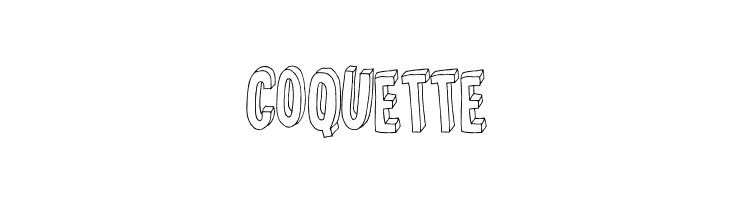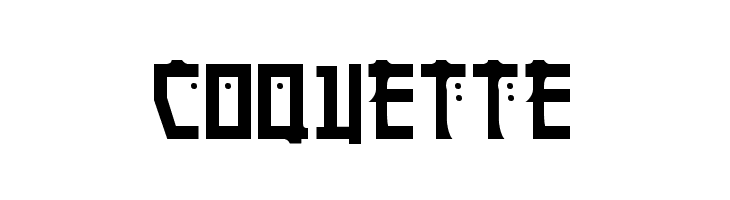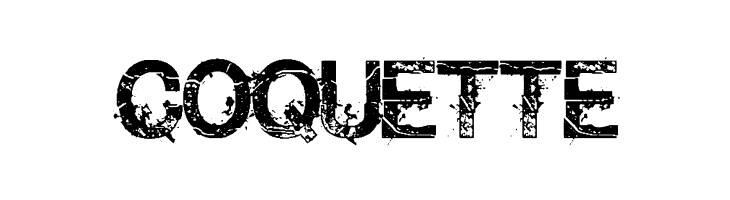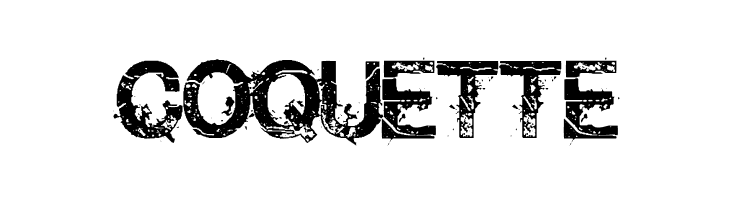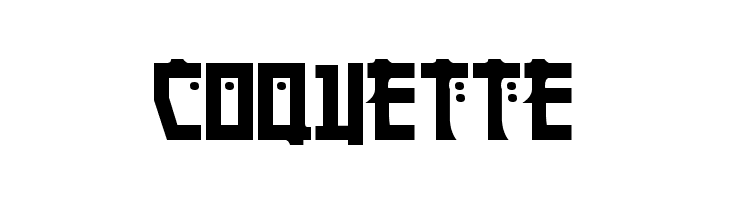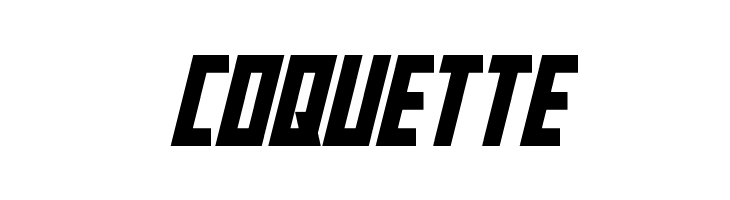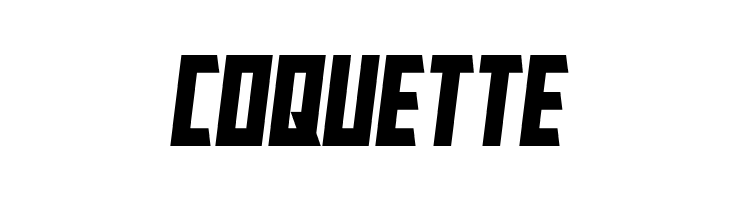
• Major Force Halftone Leftalic
A bold, geometric font with a halftone effect and futuristic style.
• Major Force Italic
A bold, italic, and geometric font with a futuristic style.
• Major Force Laser
• Major Force Laser Italic
A bold, futuristic font with sharp angles and an italic slant, perfect for sci-fi themes.
• Major Force Laser Leftalic
A bold, angular font with a futuristic and geometric design.
• Major Force Leftalic
A bold, angular font with a leftward slant, featuring geometric shapes and strong visual impact.
• Major Force Regular
A bold, geometric font with angular, blocky characters for impactful designs.
• Major Force Super-Italic
A bold, angular, and italic font with a futuristic and dynamic style.
• Majoram
A sleek, geometric font with thin, uniform strokes and a modern aesthetic.
• Majoram Bold
A modern, geometric font with clean lines and consistent stroke width.
• Majoram Bold Italic
A sleek, modern italic font with geometric precision and bold weight.
• Majoram Italic
A modern, italic font with smooth, continuous strokes and a dynamic appearance.
• Majoram Sans
A sleek, modern font with geometric, thin lines and rounded edges.
• Majoram Sans Bold
A modern, geometric sans-serif font with a sleek and minimalist design.
• Majoram Sans Bold Italic
A modern, bold, italic sans-serif font with a sleek and dynamic style.
• Majoram Sans Italic
A sleek, modern italic font with clean lines and geometric shapes.
• Make them SuffeR Regular
A distressed, grungy font with a rugged, textured appearance.
• MakefunofmeDEMO
A playful, bold 3D font with a hand-drawn aesthetic.
• MakethemSuffeR-Regular
A bold, distressed font with a grunge, urban aesthetic.
• Maki & Fugu